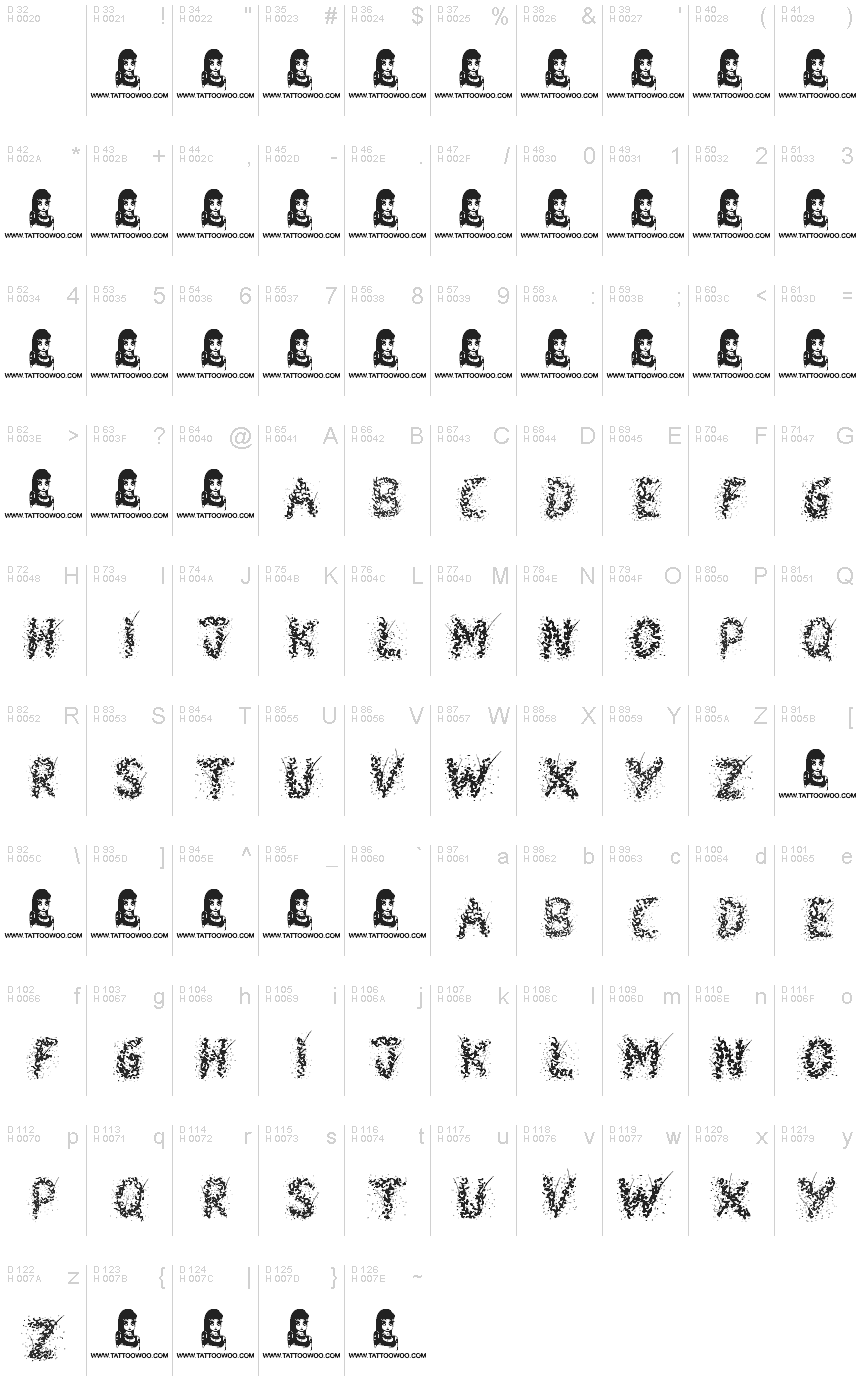
Snowmania
Snowmania, crafted by the imaginative minds at TattooWoo.com, stands out as a display font that encapsulates the whimsy and excitement of winter. With its decorative style and bold weight, Snowmania brings a playful yet impactful presence to any creative project. The font's characters are adorned with what appears to be snowflakes and ice crystals, suggesting it would be perfectly at home in seasonal advertising, festive event invitations, or any design that aims to evoke the magic of a winter wonderland.
The aesthetic of Snowmania is both charming and eye-catching; its frozen contours suggest movement reminiscent of falling snow, making each word seem alive with the spirit of the season. This makes it an excellent choice for businesses looking to capture attention in holiday campaigns or for personal projects that aim to spread joy with a touch of frosty flair.
Versatile in its application yet specific in its thematic resonance, Snowmania offers designers an opportunity to convey warmth and cheerfulness despite its chilly inspiration. Whether utilized for headlines on winter sale banners or as part of a custom greeting card signature line, this font has the potential to transform text into an enchanting visual experience.